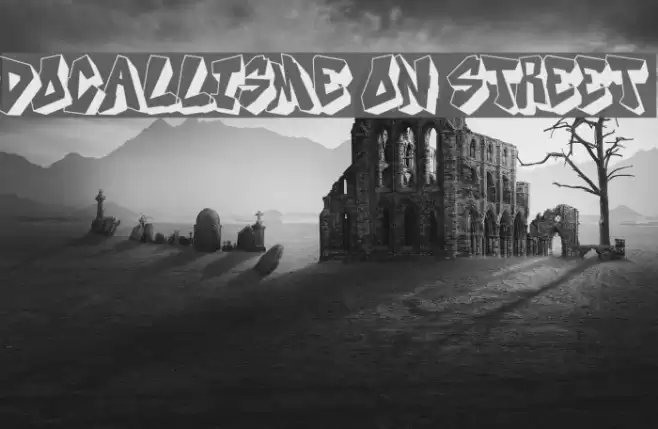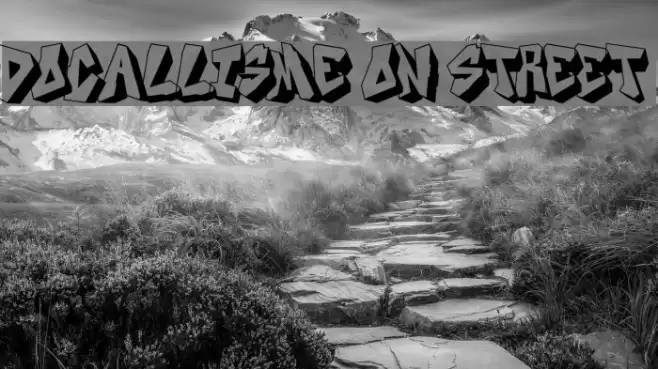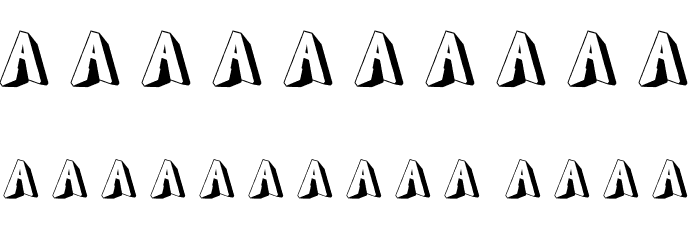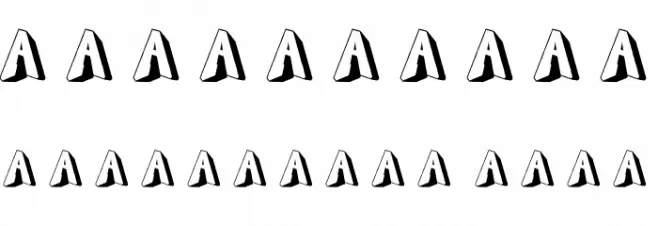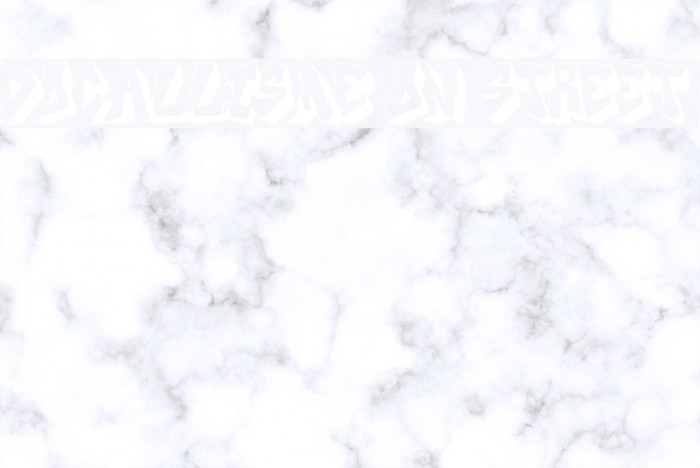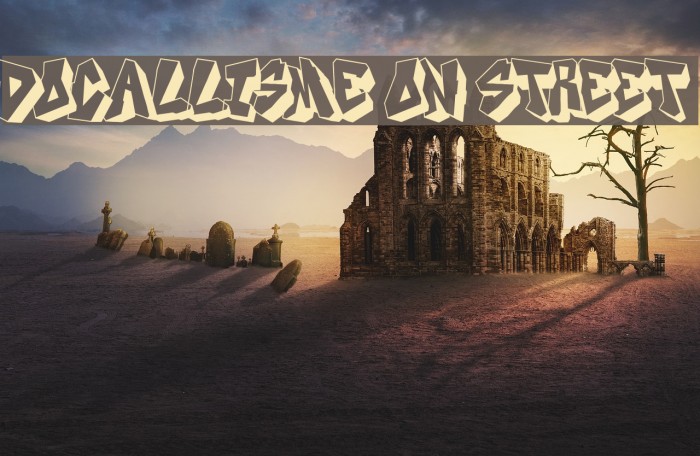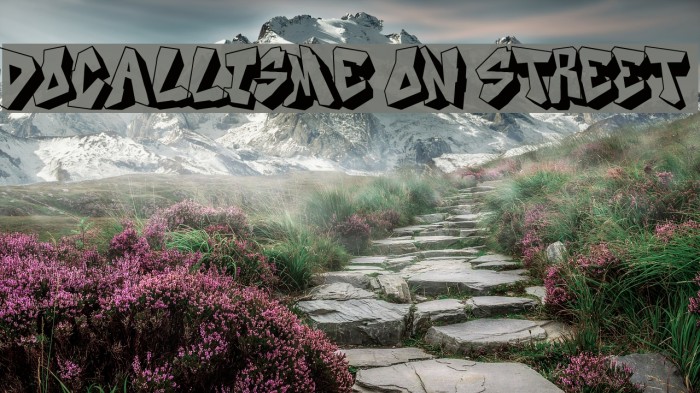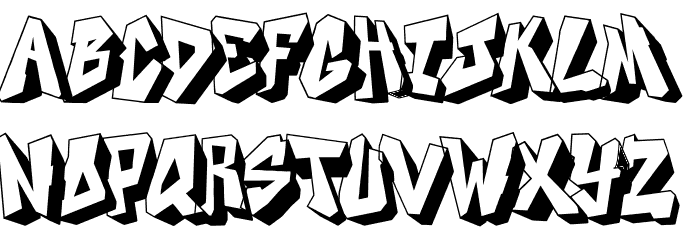
DOCALLISME ON STREET Font
DOCALLISME ON STREET Description
This font showcases a bold, graffiti-inspired style with a strong urban influence. Each character is designed with a three-dimensional effect, giving the impression of depth and shadow. The letters are angular and dynamic, with sharp edges and a sense of movement that captures the essence of street art. The font's boldness and unique style make it stand out, perfect for projects that require a strong visual impact. The characters are tightly spaced, enhancing the compact and energetic feel of the design.
A bold, graffiti-inspired font with a 3D effect and urban style from Uncategorized fonts.
- Proposed Projects: Ideal for street art projects, urban-themed posters, music album covers, and edgy branding.
- Character Spacing: Tight